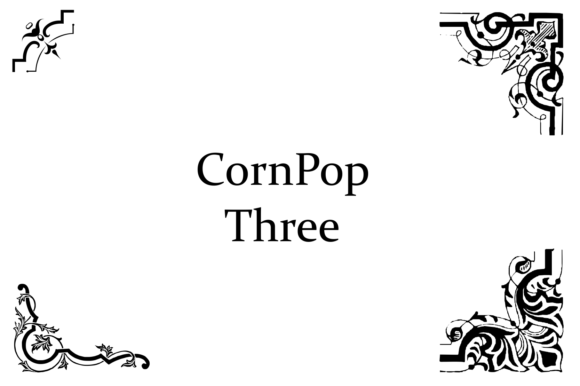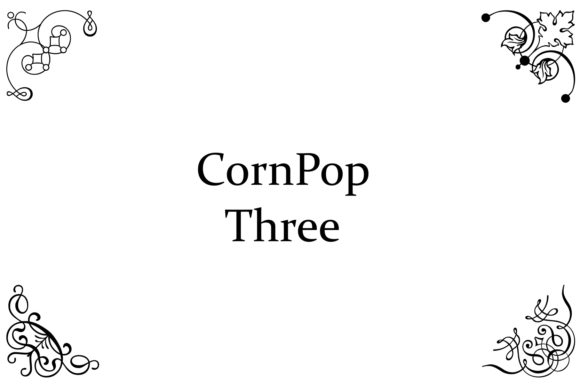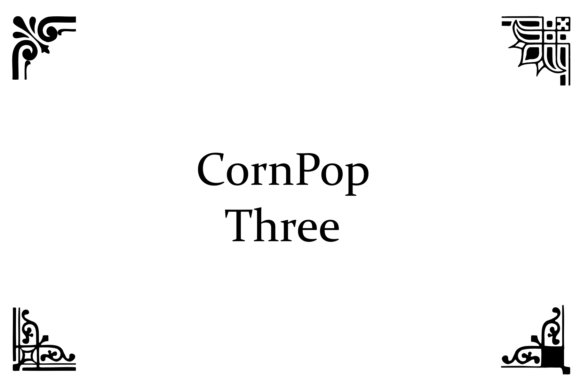
About CornPop Three Font
The CornPop Three is a delightful dingbat font that features a plethora of decorative corn designs. This fun and playful collection of corn-themed dingbats can add a touch of whimsy and charm to your designs.
With the CornPop Three font, you have access to a variety of corn-inspired symbols and ornaments. From cute and smiling corn characters to cornstalks, corn cobs, and corn kernels, these dingbats offer a range of decorative elements that can be used to enhance your creative projects.
Whether you’re working on invitations for a corn-themed event, designing posters for a farm festival, creating packaging for a corn-based product, or simply adding a touch of corn-themed flair to your artwork, the CornPop Three dingbat font provides a wealth of options to choose from.
These dingbats can be used in various ways to add decorative accents or create patterns and borders. They can also be combined with other design elements to create unique compositions that celebrate the beauty and charm of corn. The versatility of the CornPop Three font allows you to explore different creative possibilities and customize your designs according to your preferences.
Whether you’re aiming for a lighthearted and playful theme or a more rustic and agricultural aesthetic, the CornPop Three dingbat font is a perfect choice for incorporating corn-themed elements into your designs.
In summary, the CornPop Three font is a delightful collection of decorative corn-themed dingbats. With its playful and whimsical designs, this font allows you to add a touch of charm and creativity to your projects. Whether you’re designing for a specific corn-related theme or simply want to incorporate corn-inspired elements into your artwork, the CornPop Three dingbat font provides a range of options to make your designs stand out.